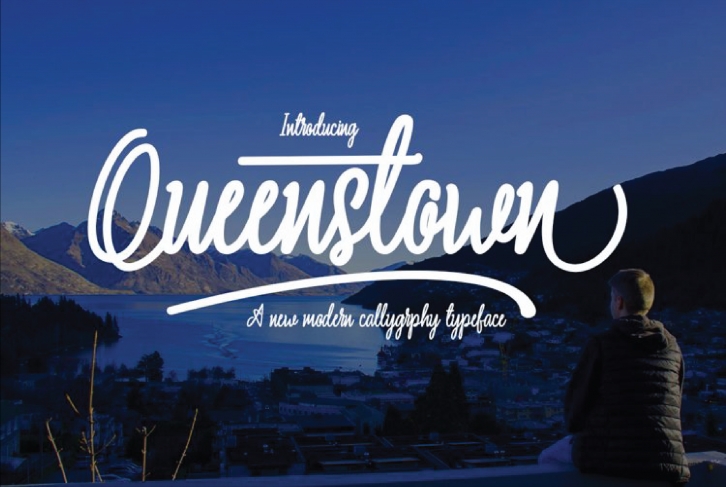
Queenstown Modern Calligraphy. This font was designed by handwriting, and it has a modern and unique forms of calligraphy, the writing style is very natural.
The Features of this fonts is
* Standard ligatures
* Stylistic Alternates
* Contextual Alternates
* Stylistic sets
Can be used for various purposes. Such as headings, logos, wedding invitation, t-shirt, letterhead, signage, lable, news, posters, badges etc. To enable the OpenType Stylistic alternates, you need a program that supports OpenType features such as Adobe Illustrator CS, Adobe Indesign & CorelDraw X6-X7.